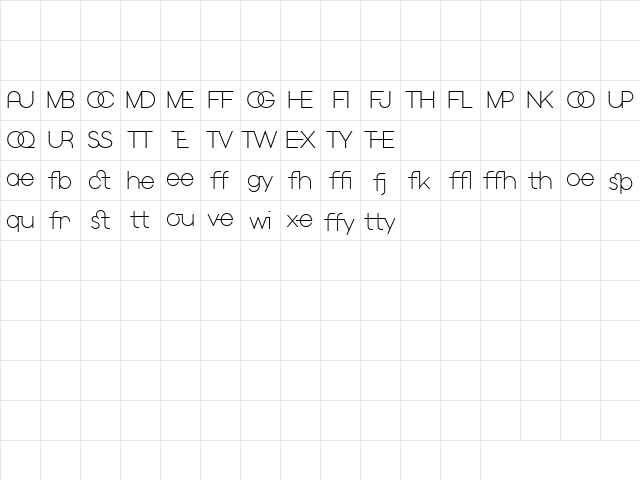
CK Roxy Ligatures Regular
Design Context for CK Roxy Ligatures Typeface
CK Roxy Ligatures is a composed and adaptable typeface that performs quietly and consistently across a wide range of design contexts.